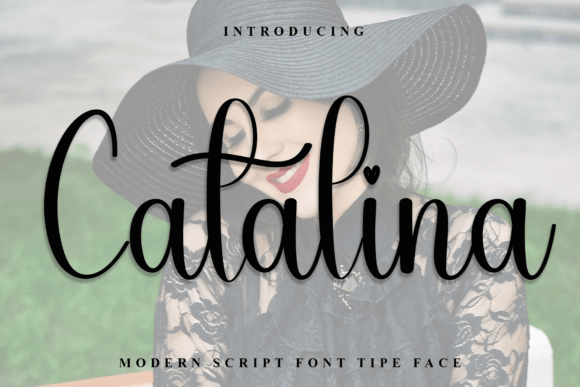
Enter the Catalina Font, a festive and merry typeface that captures the essence of the holiday season. With its decorative elements and whimsical flair, this font adds a touch of enchantment to any design, making it perfect for greeting cards, gift tags, and holiday-themed projects. Whether you’re a seasoned designer or a holiday enthusiast, the Catalina Font is a valuable addition to your toolkit, allowing you to bring a cheerful and nostalgic ambiance to your words.
Catalina Font Key Features
- Font Family: Catalina
- Unique Characteristics: Features a distinctive, elegant design with rounded edges and subtle flair, making it ideal for creative and luxury branding
Catalina Font Review
I recently had the chance to work with the Catalina font, and I must say it’s a unique addition to any design project. Here are my honest thoughts.
- Elegant and sophisticated feel: The Catalina font exudes a sense of refinement and sophistication, making it perfect for high-end branding, luxury goods, or fine art.
- Versatility: It’s available in multiple weights, from light to bold, allowing designers to experiment with different styles and moods.
- Distinctive flair: The font’s unique flair and personality make it stand out in a crowd, adding a touch of whimsy and charm to any design.
- Limited legibility: In smaller font sizes, the Catalina font can become difficult to read, especially in text-heavy content.
- Overuse: Its distinctive flair can quickly become overwhelming if used excessively, making it essential to balance it with more neutral fonts.
- Limited language support: The font’s design may not be suitable for languages that require more complex typography, such as Chinese or Japanese.
The Catalina font is a beautiful, high-end font that shines in the right context. While it has some limitations, its unique personality and versatility make it a valuable addition to any designer’s toolkit.
The Catalina font is ideal for:
- Food and drink branding
- Fashion and lifestyle design
For optimal results, use the Catalina font in combination with:
- Soft pastel colors
- Watercolor textures
- Minimalist graphics